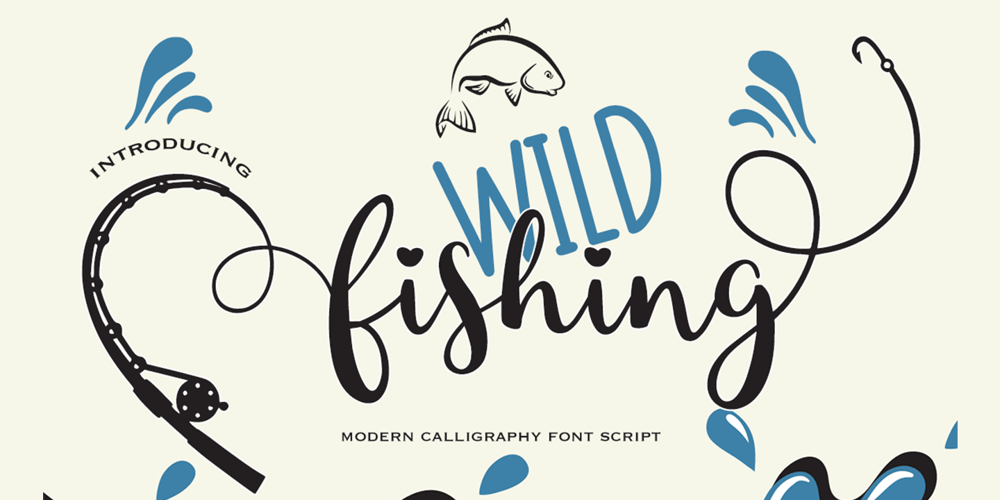
Wild fishing Font Family was designed by Muhammad Zaini and published by Cocodesign. Wild fishing contains 3 styles and family package options. Wild fishing Script is a modern calligraphy design, including Regular. This font is casual and beautiful with swash. Can be used for various purposes. such as logos, product packaging, wedding invitations, branding, headlines, signage, labels, signatures, book covers, posters, quotes, and more.